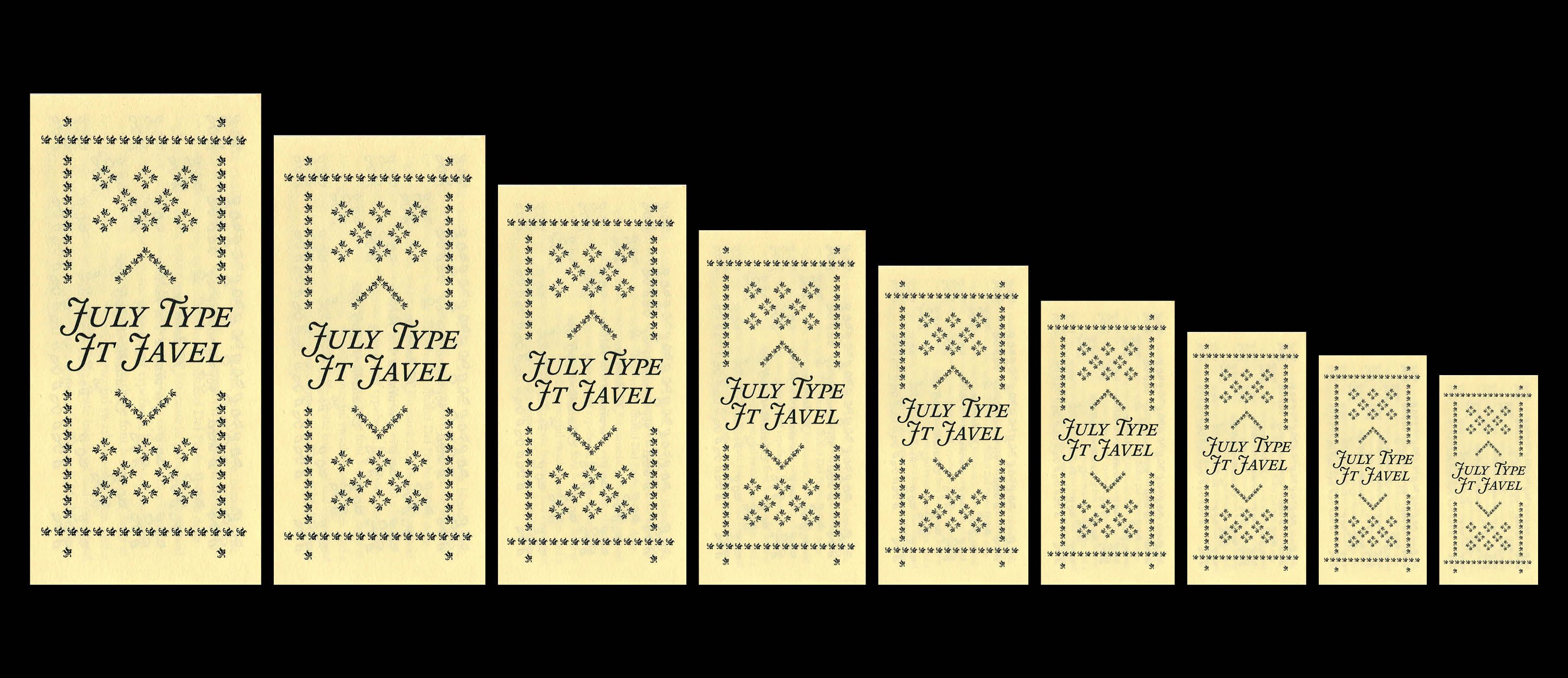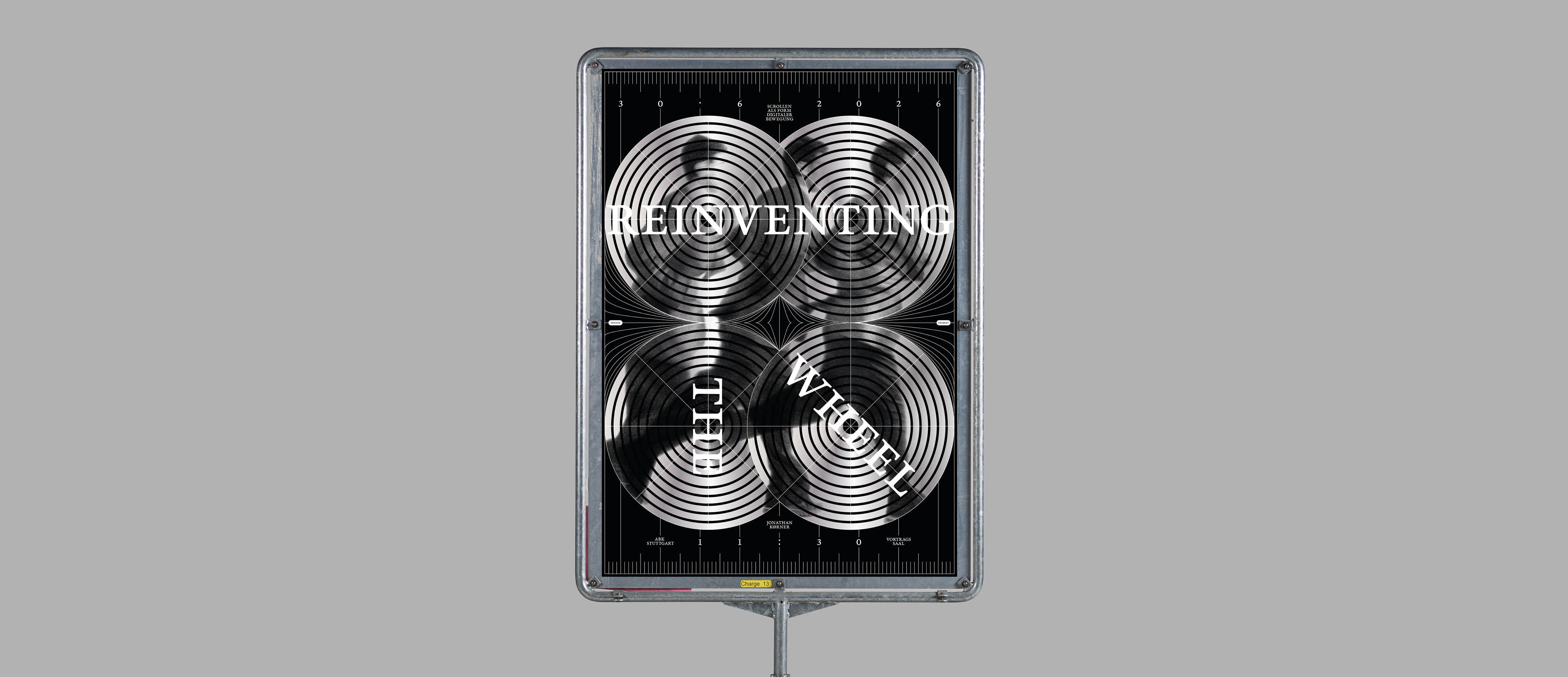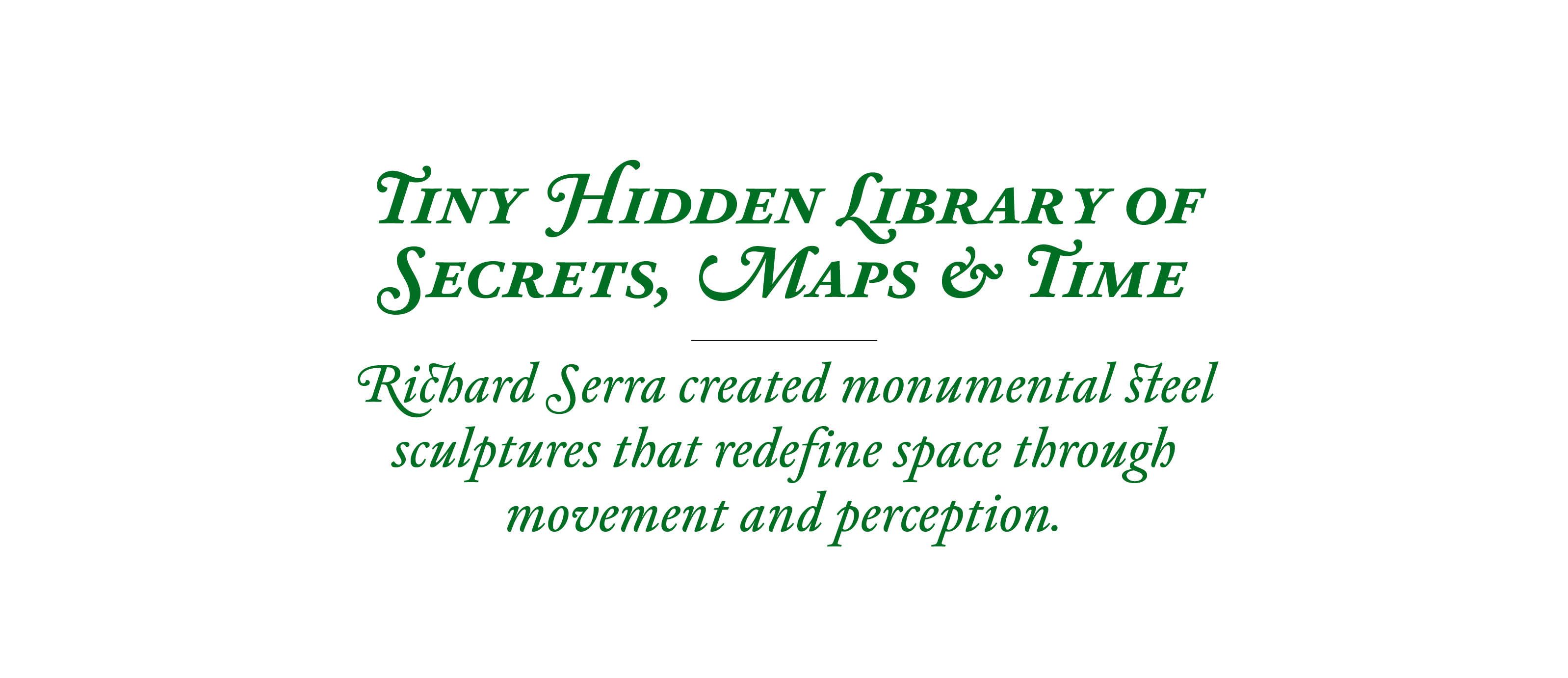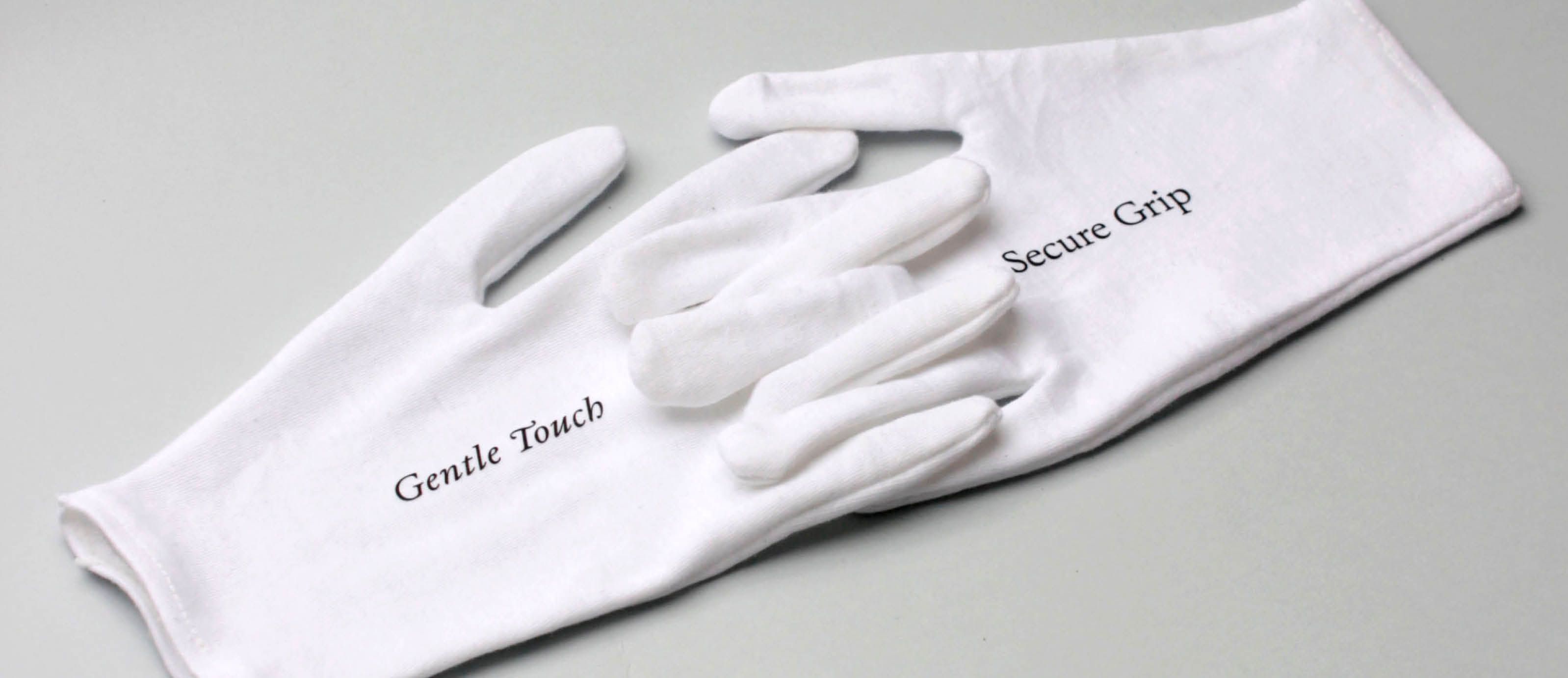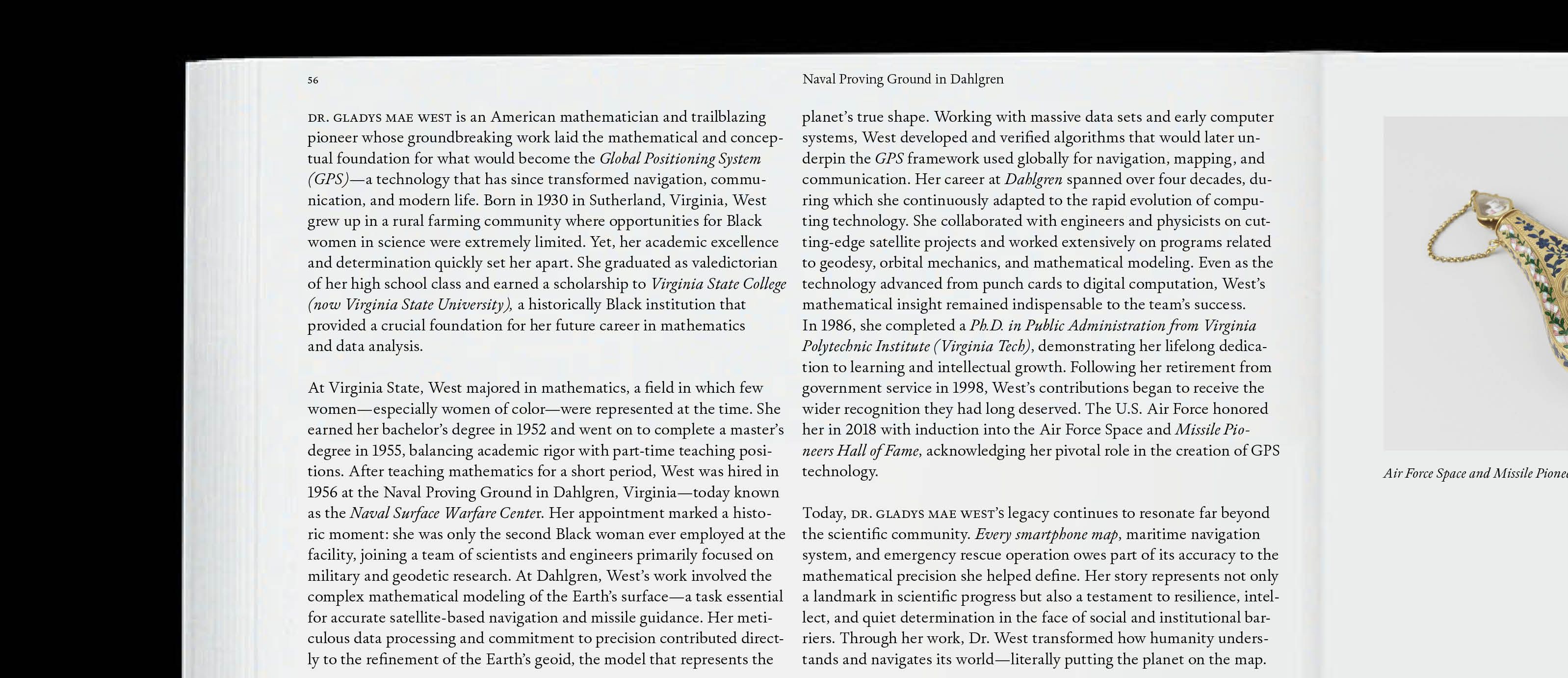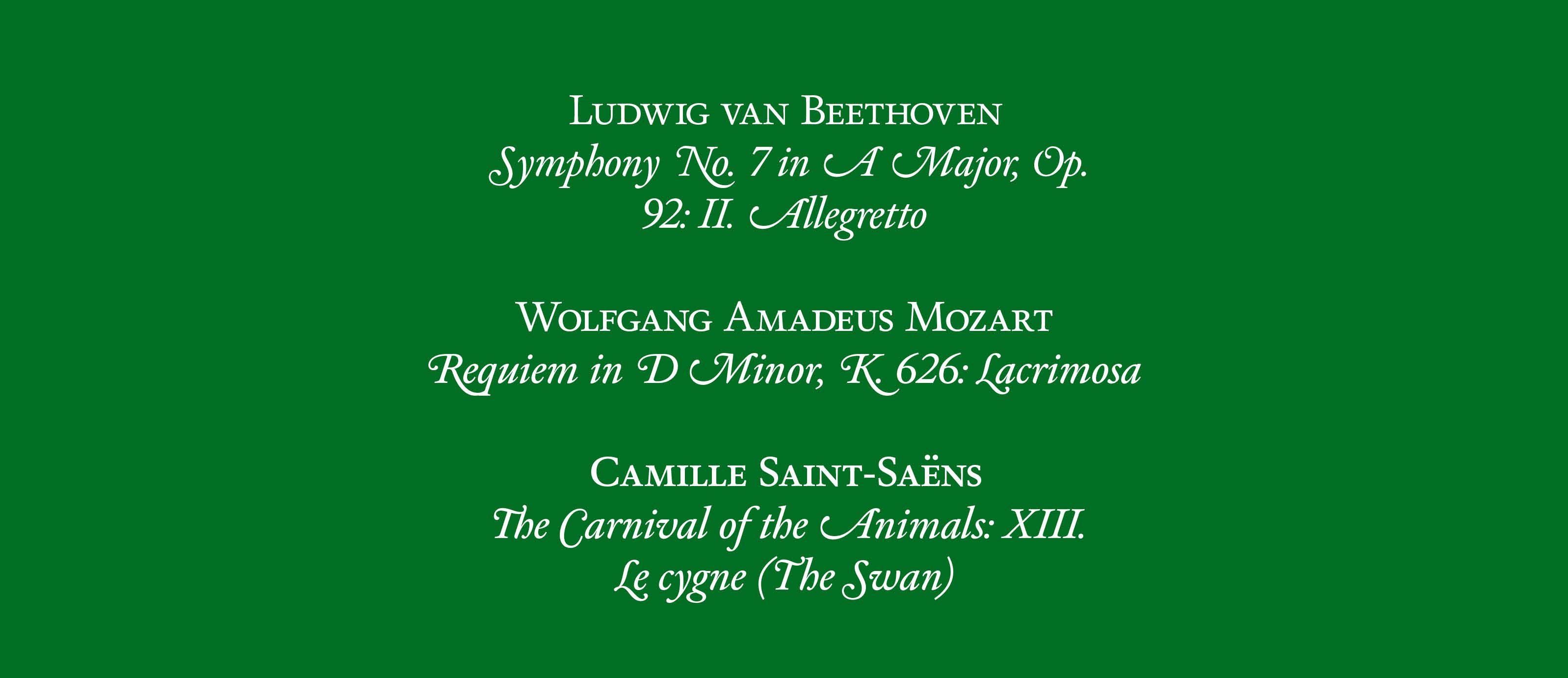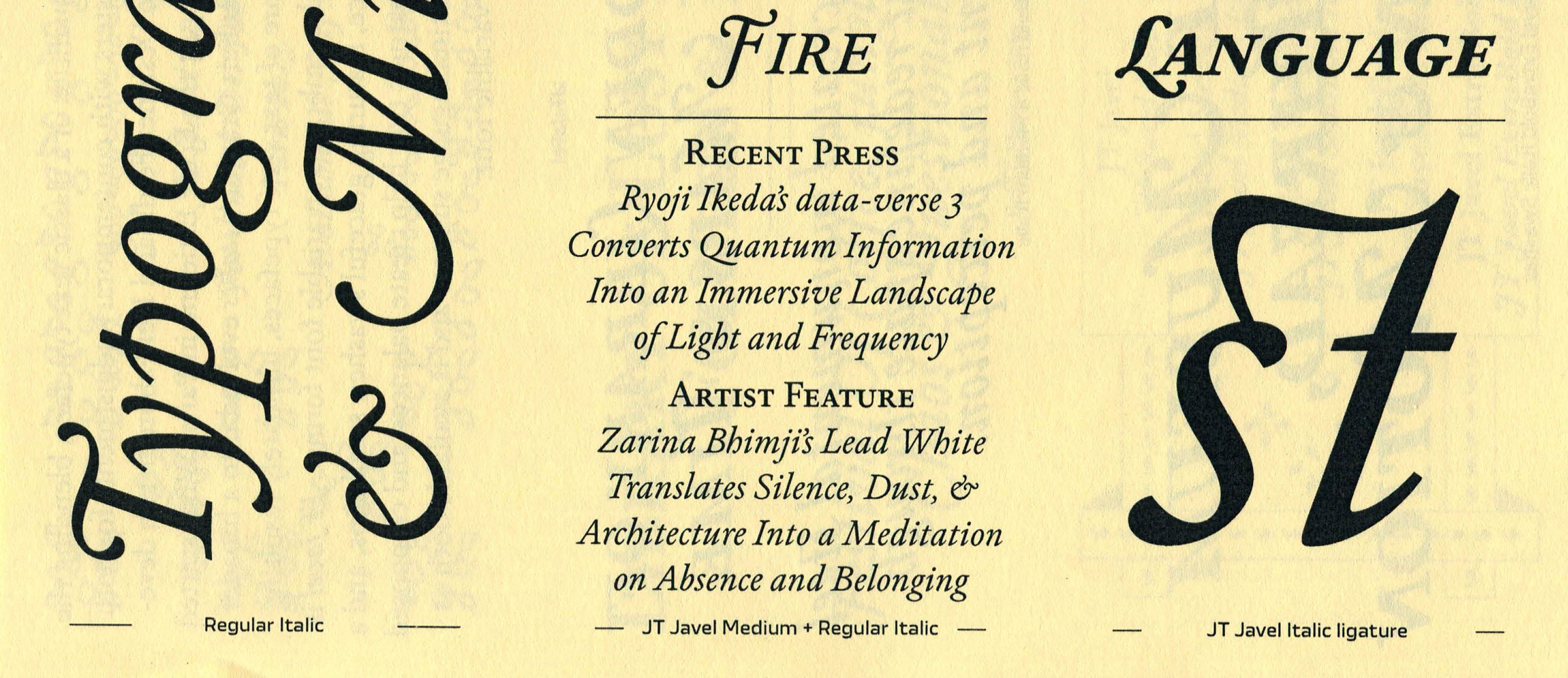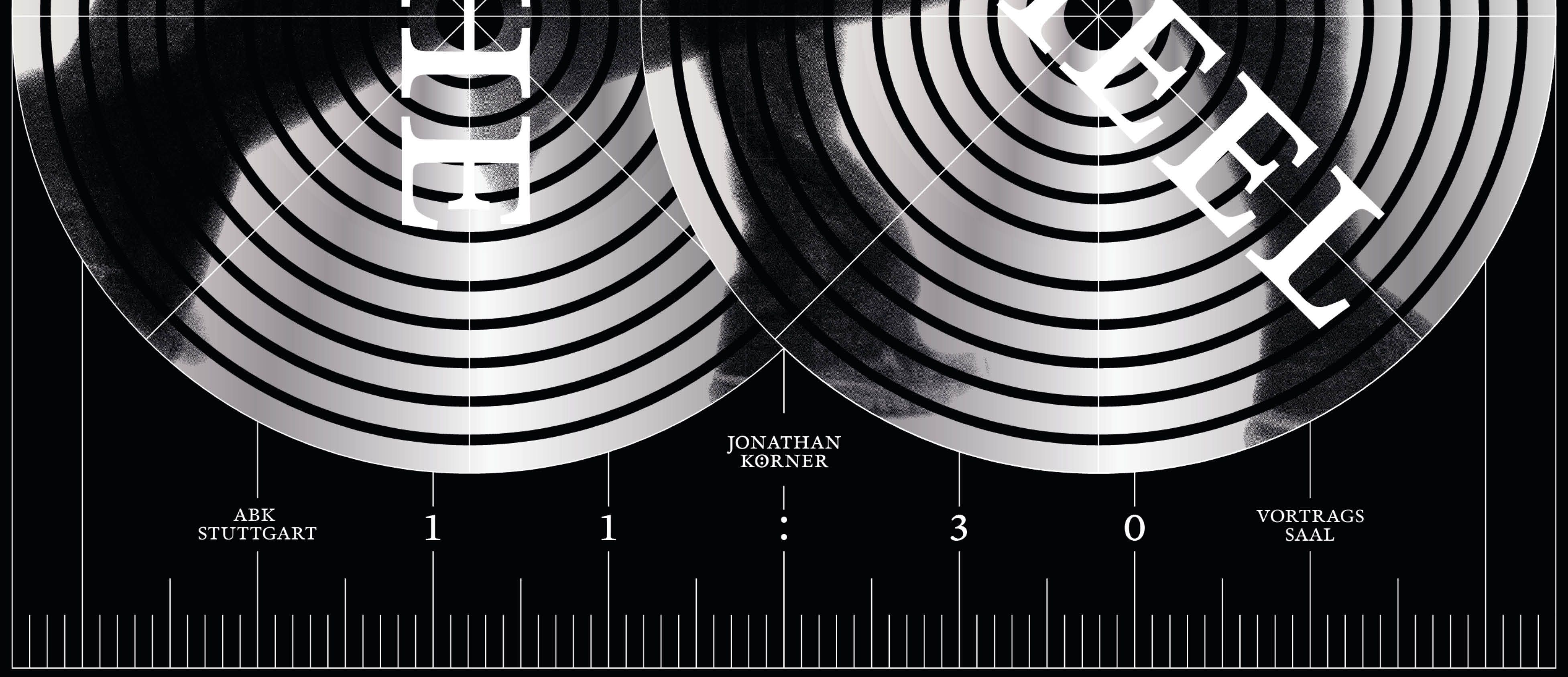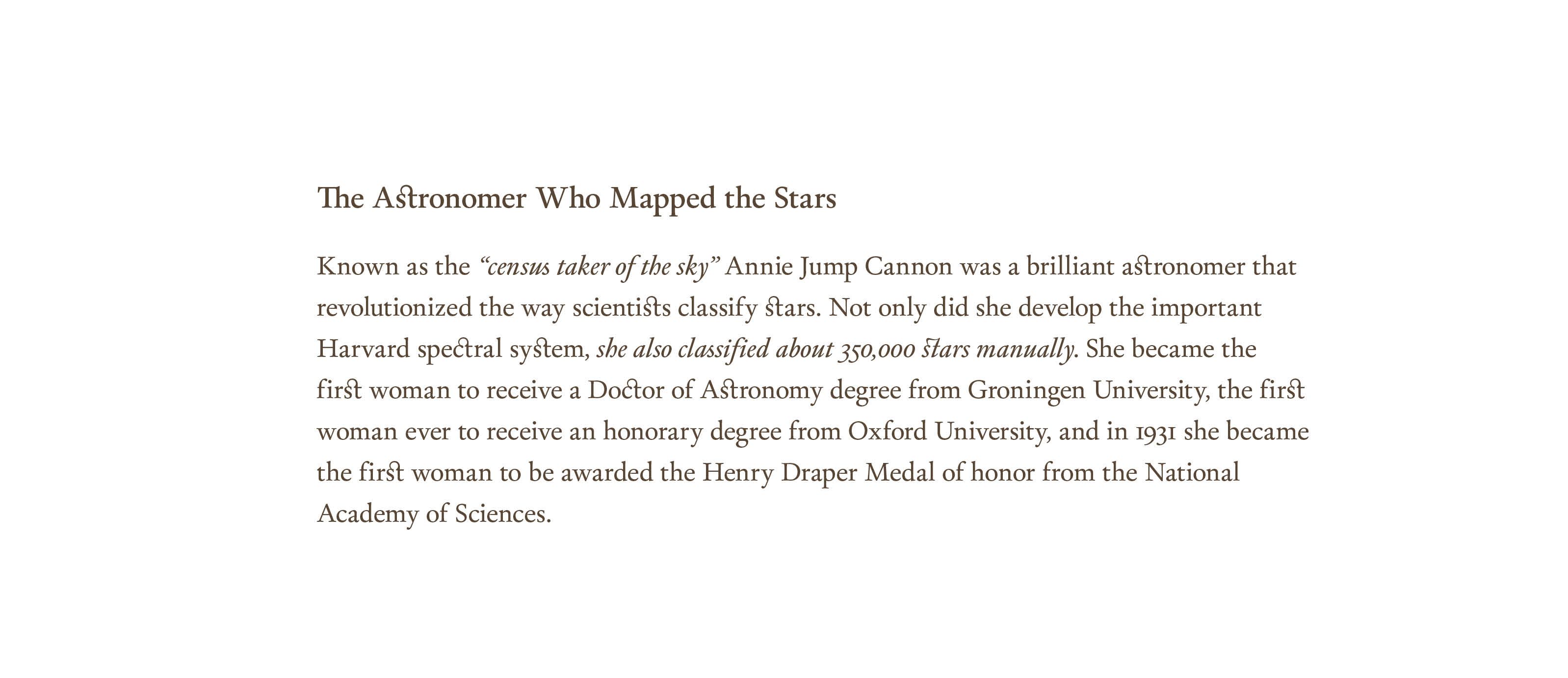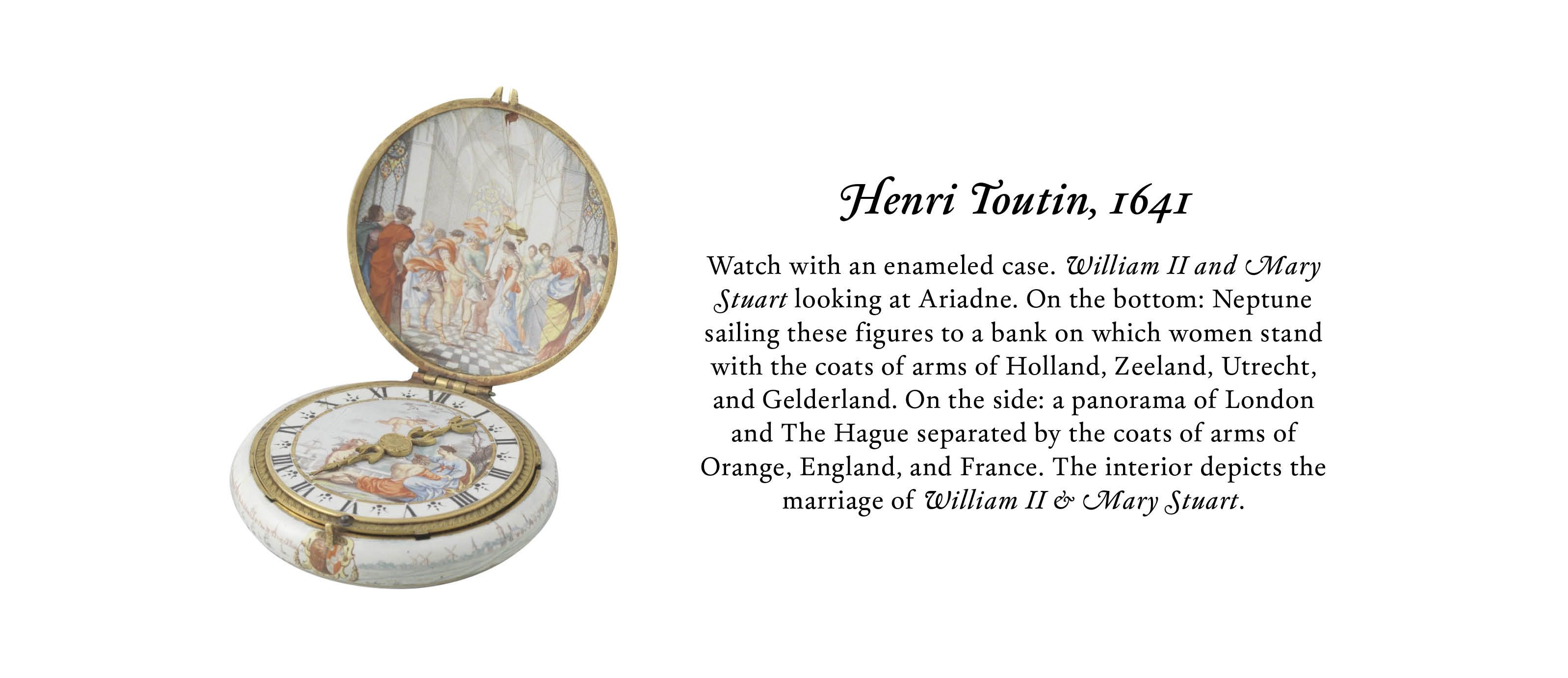
Booklet for the the Gerrit Rietveld Academie in Amsterdam. Design by Chloé Gourvennec and Eliot Kristofer Axelsson.
Reinventing the wheel, poster by Jonathan Körner
Exhibition companion design for Harriet Bart archive exhibition at the University of Minnesota Anders Library. Design by Deadalus Li.
JT Javel carries the refined qualities of a classic text typeface, blending the elegance of Renaissance masters with contemporary refinements for both print and screen typography. The project began while designer Ferdinand Del Fabbro was studying at the École Estienne in Paris. Initially what started as a loose of Robert Granjon’s italics interpretation, gradually expanded into a much broader exploration of the text serif typefaces. This study led to a design that not only respects historical craftsmanship but also embraces the flexibility of a variable font format. JT Javel’s structure is based on the warm and lively qualities of Renaissance type, but it has been carefully redrawn to work well in today’s reading environments. During its development, Ferdinand focused on clear proportions, a steady rhythm, and a gentle balance between crisp and softer shapes.
The typeface includes a rich set of typographic features, from elegant swashes and small caps to refined ligatures and multiple numeral styles, allowing designers to fine-tune both character and functionality. These features will help you to create clear, balanced layouts! Jt Javel has a flexible character that works easily in many settings, from book typography to screen. The typeface offers extensive Latin language support and it is a highly functional typeface that bridges historical inspiration with the needs of modern typography.